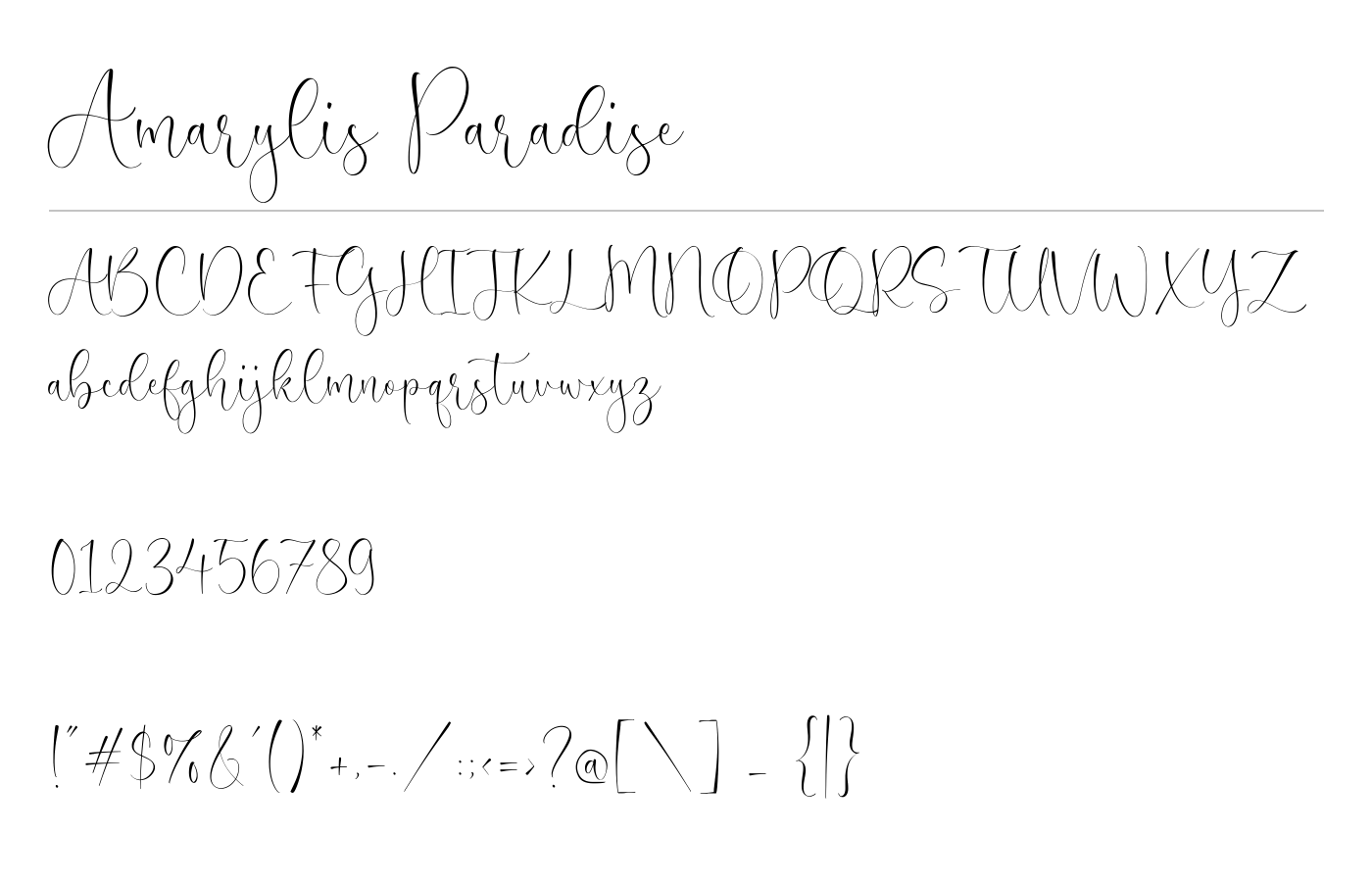
Amarylis Paradise is an elegant, light script font characterized by its delicate, flowing strokes and tall, graceful letterforms. It conveys a romantic and sophisticated mood, making it ideal for wedding invitations, luxury branding, and feminine editorial designs where a handwritten, airy style is desired. Its fine lines and decorative swashes work beautifully for display use, adding an artistic, whimsical touch without overwhelming the design.
Amarylis Paradise Font
About Amarylis Paradise Font